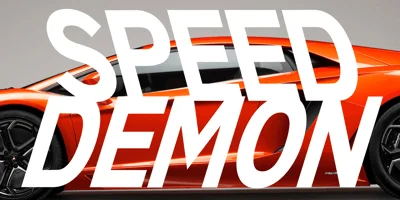
Back And Forth Font
The Back And Forth Font is excellent for dynamic motion graphics, sports team branding, fitness center promotions, dance studio materials, rhythm-based music events, kinetic art installations, interactive design projects, and movement therapy clinics. This energetic typeface works wonderfully in applications where motion and rhythmic energy need to be emphasized, making it perfect for brands that want to communicate vitality, movement, and dynamic interaction through visually engaging typography.
What makes Back And Forth Font exciting is its kinetic energy and rhythmic movement that captures the essence of dynamic motion and continuous flow. The font's oscillating character design and movement-inspired letterforms create an atmosphere of perpetual motion and energetic rhythm, making it ideal for brands that want to convey activity, progress, and dynamic engagement. Its animated character ensures that every application feels alive with movement and pulsating energy.
The Back And Forth Font family typically includes regular, bold, and motion-enhanced weights, often featuring directional variants, kinetic alternates, and movement-inspired symbols that enhance its dynamic appeal. Many versions include rhythm indicators, motion trails, and specialized characters that provide designers with comprehensive tools for creating movement-focused design projects with genuine kinetic energy and rhythmic visual flow.
For designers working on projects that require dynamic motion and energetic rhythm, Back And Forth Font provides exceptional kinetic impact. Its ability to instantly communicate movement and vitality makes it an invaluable choice for fitness brands, sports organizations, and any project requiring typography that embodies the excitement of motion, the power of rhythm, and the engaging energy of continuous dynamic movement and interactive visual experiences.